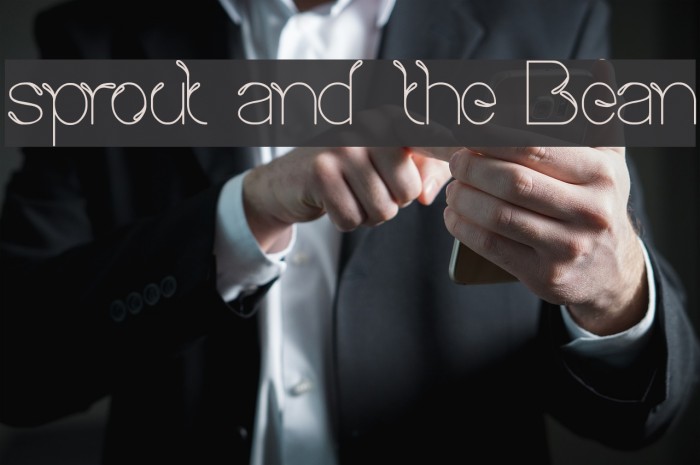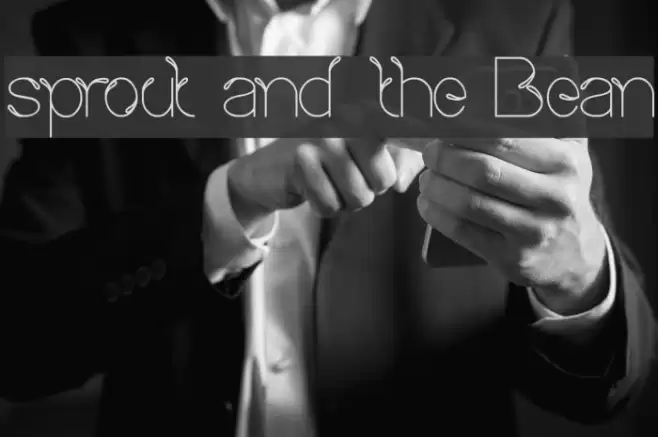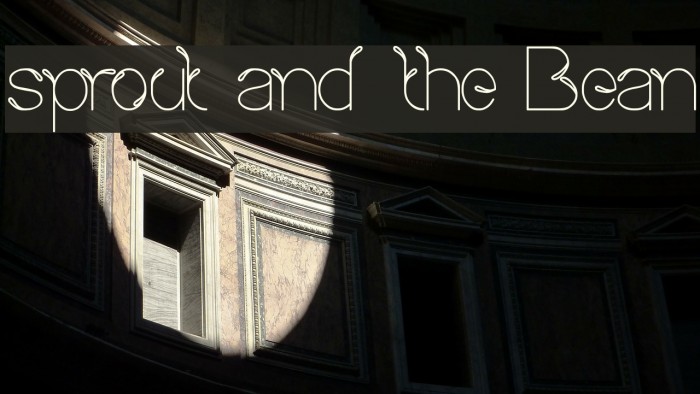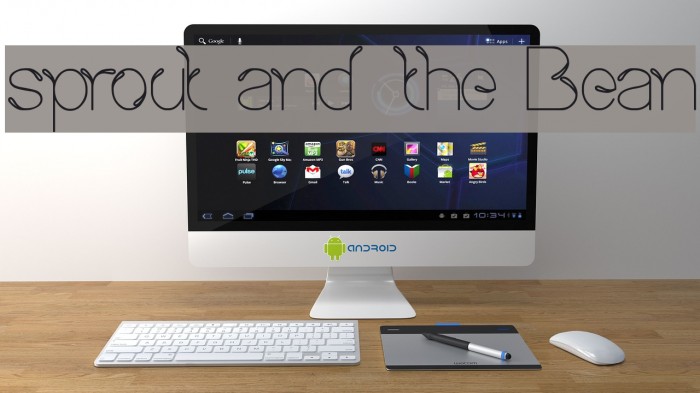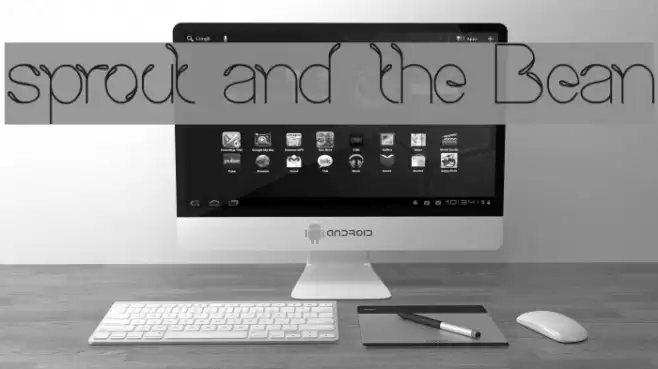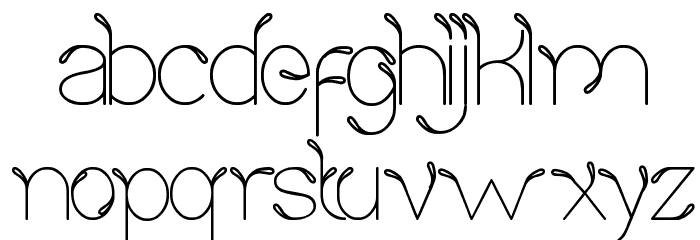
sprout and the Bean Font
sprout and the Bean Description
This font features a unique and artistic design with a whimsical flair. Each character is crafted with delicate, vine-like extensions that give it an organic and playful appearance. The lines are thin and elegant, creating a sense of lightness and fluidity. The uppercase and lowercase letters maintain a consistent style, with smooth curves and loops that add to the font's charm. The numbers and special characters are equally stylized, ensuring a cohesive look across all elements. This font is perfect for projects that require a touch of creativity and nature-inspired aesthetics.
| Proposed Projects | Ideal for nature-themed designs, creative branding, invitations, and artistic projects. |